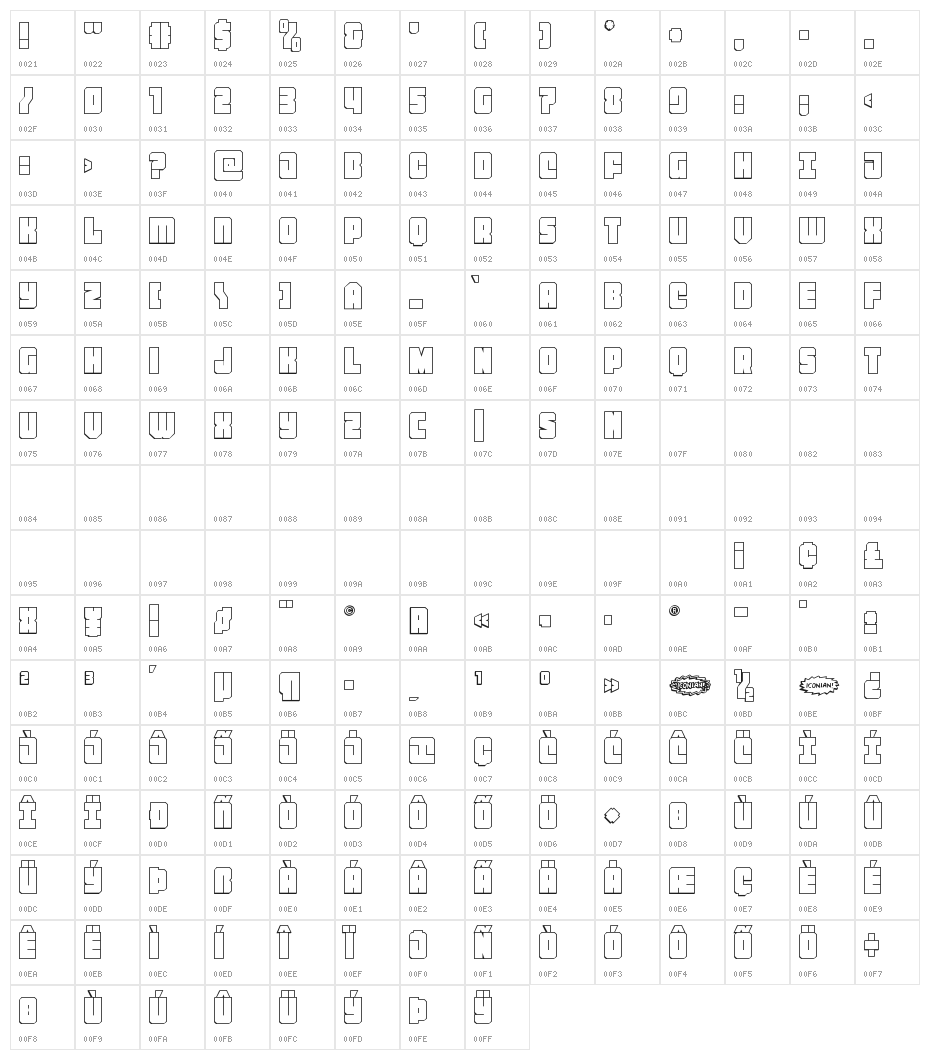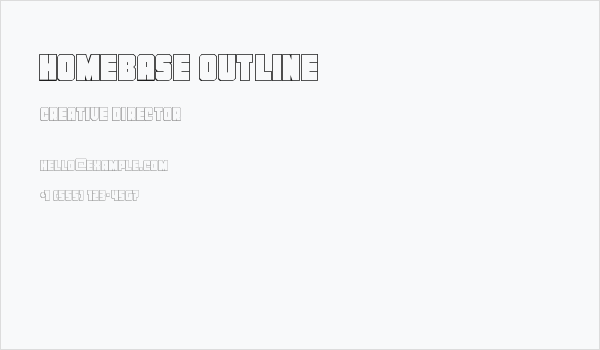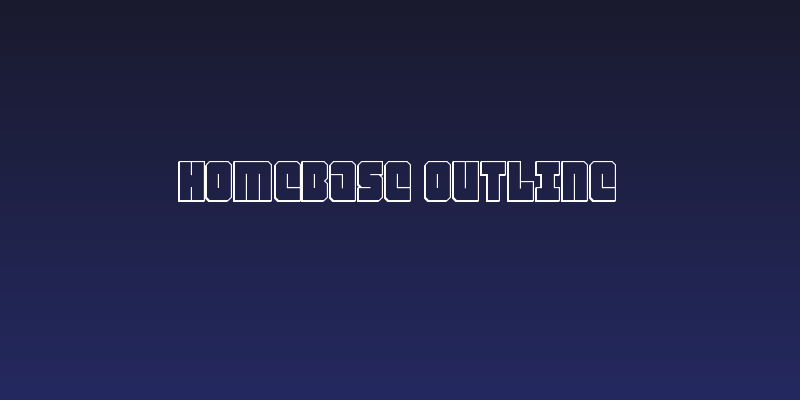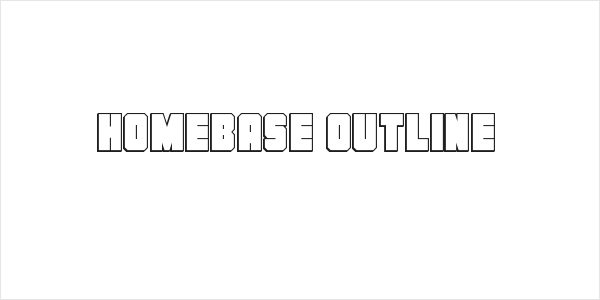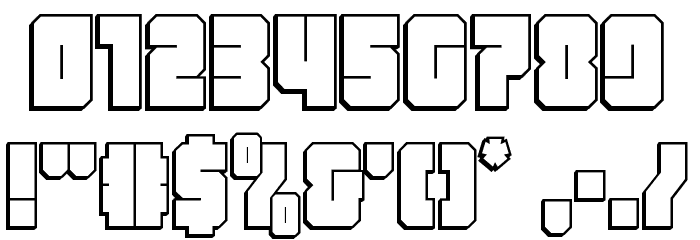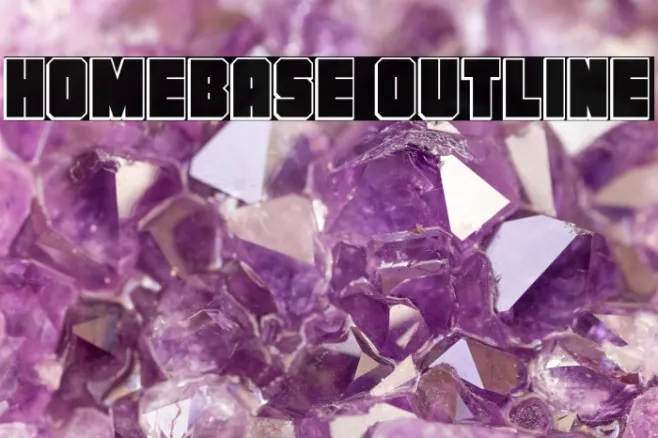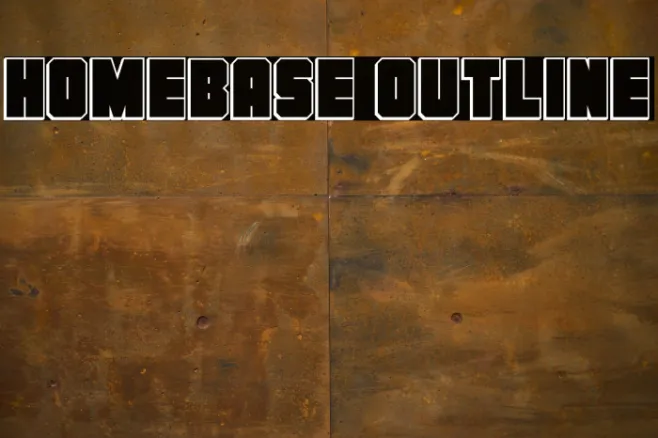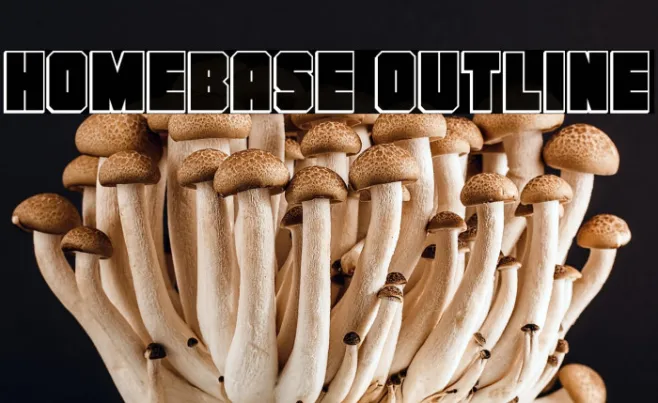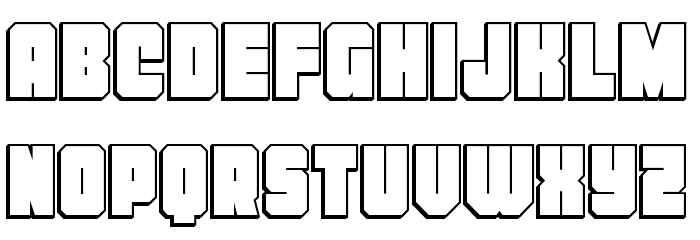
Homebase Outline Font
Homebase Outline Description
This font features a bold, geometric design with a distinct outline style. The characters are blocky and angular, creating a strong visual impact. The uppercase and lowercase letters maintain a consistent height, contributing to a uniform appearance. The numbers and special characters follow the same design principles, ensuring cohesion across all elements. The font's outline adds a layer of depth, making it suitable for eye-catching designs. Its structured form and clear lines make it highly legible, even at smaller sizes. The overall aesthetic is modern and industrial, with a hint of retro influence. This font is ideal for projects that require a bold statement, such as posters, logos, and headlines.
HOMEBASE-OUTLINE UPPERCASE
HOMEBASE-OUTLINE LOWERCASE
HOMEBASE-OUTLINE OTHER CHARS
| Overall Style | Modern, Industrial |
| Proposed Projects | Ideal for posters, logos, headlines, and any design requiring a strong visual impact. |